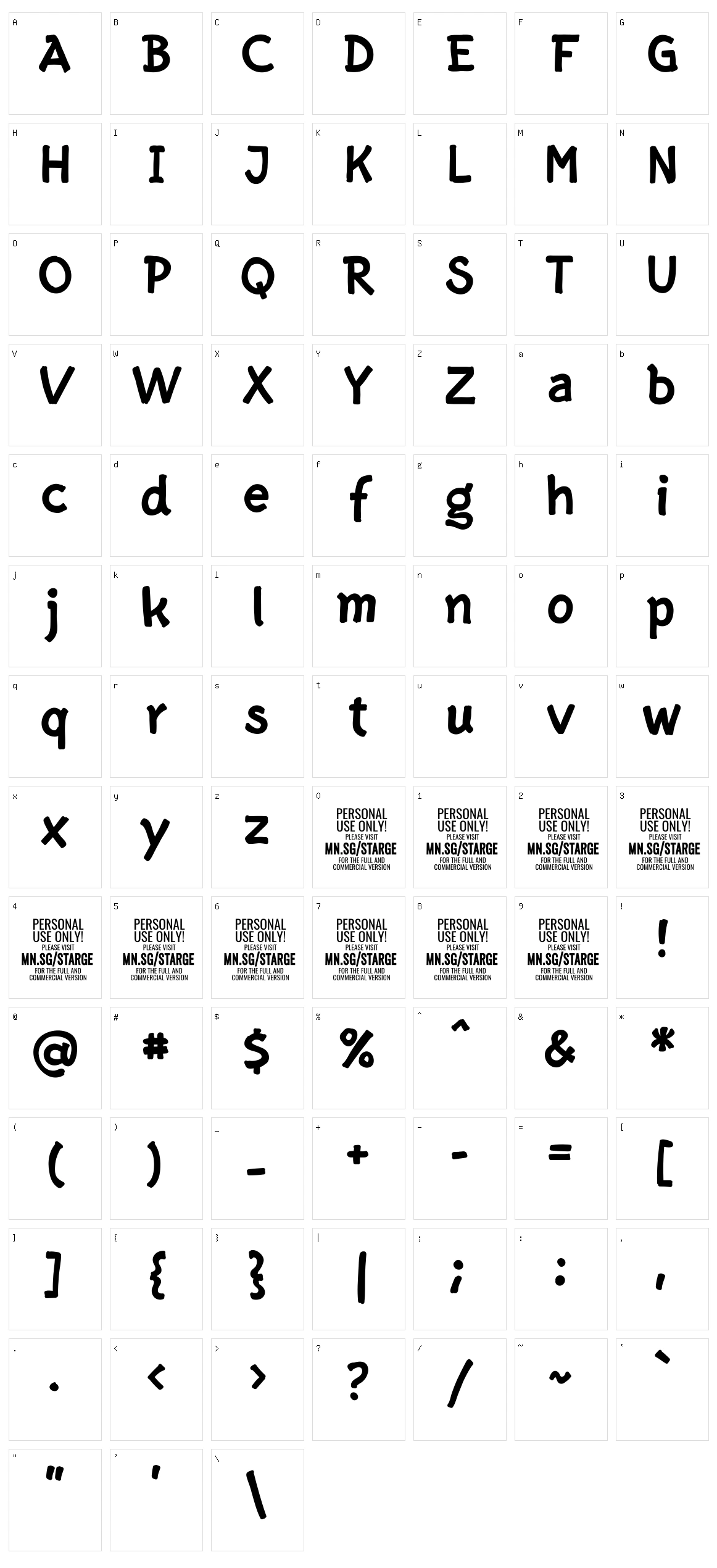
Starge is a professional hand-drawn sans typeface.
It works perfectly for a crafty project where a functional font is required.
The font supports all Latin-based European languages, contains numbers and
all symbols you'll ever need.